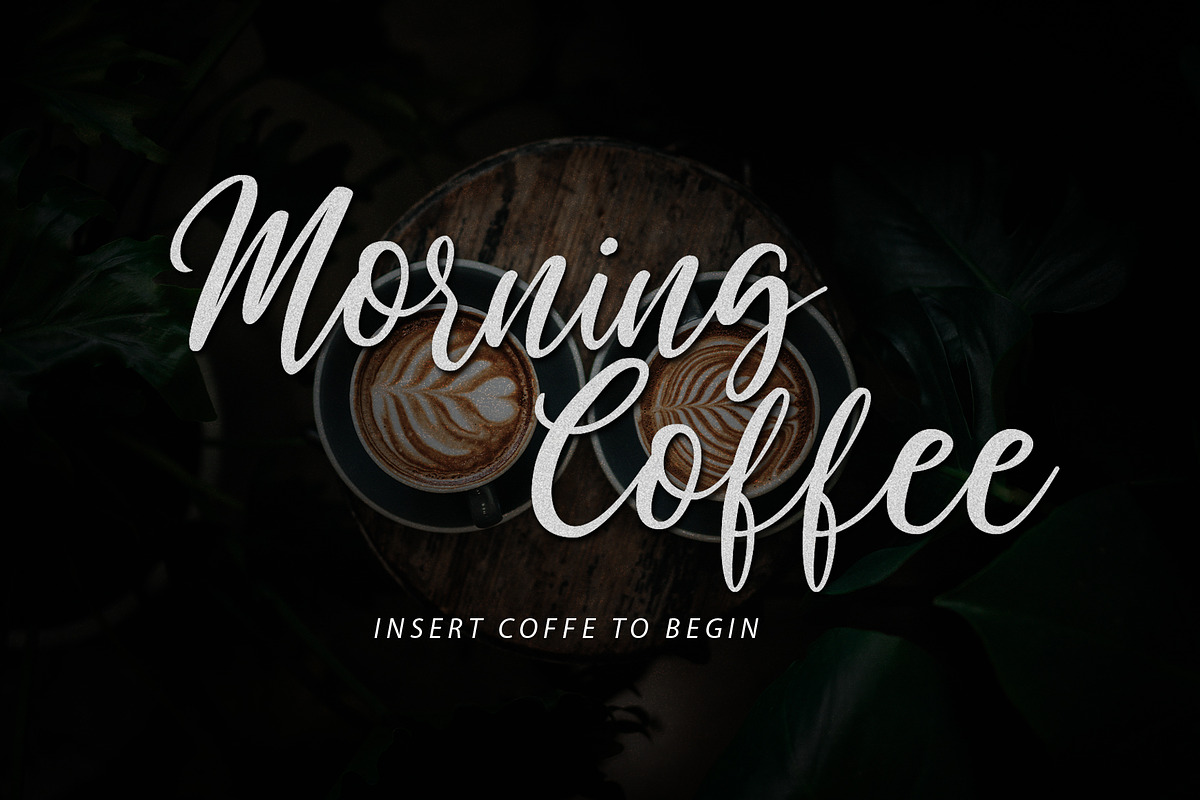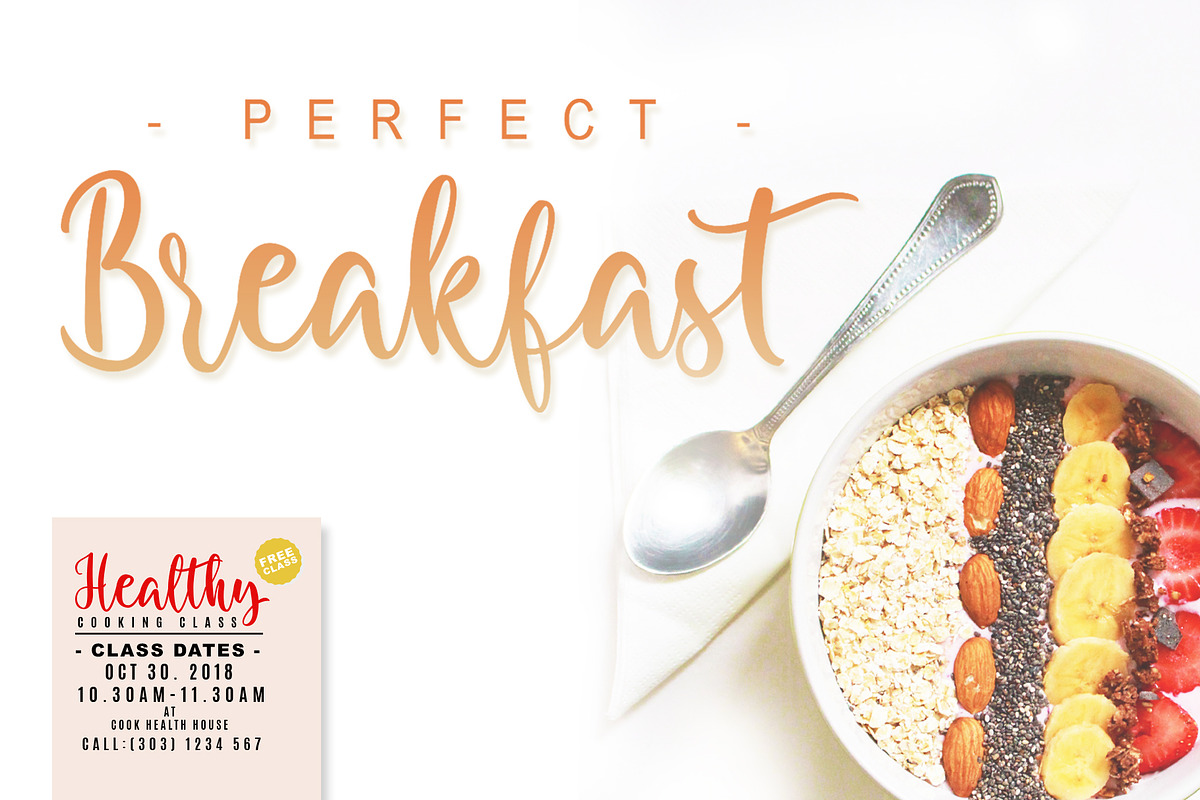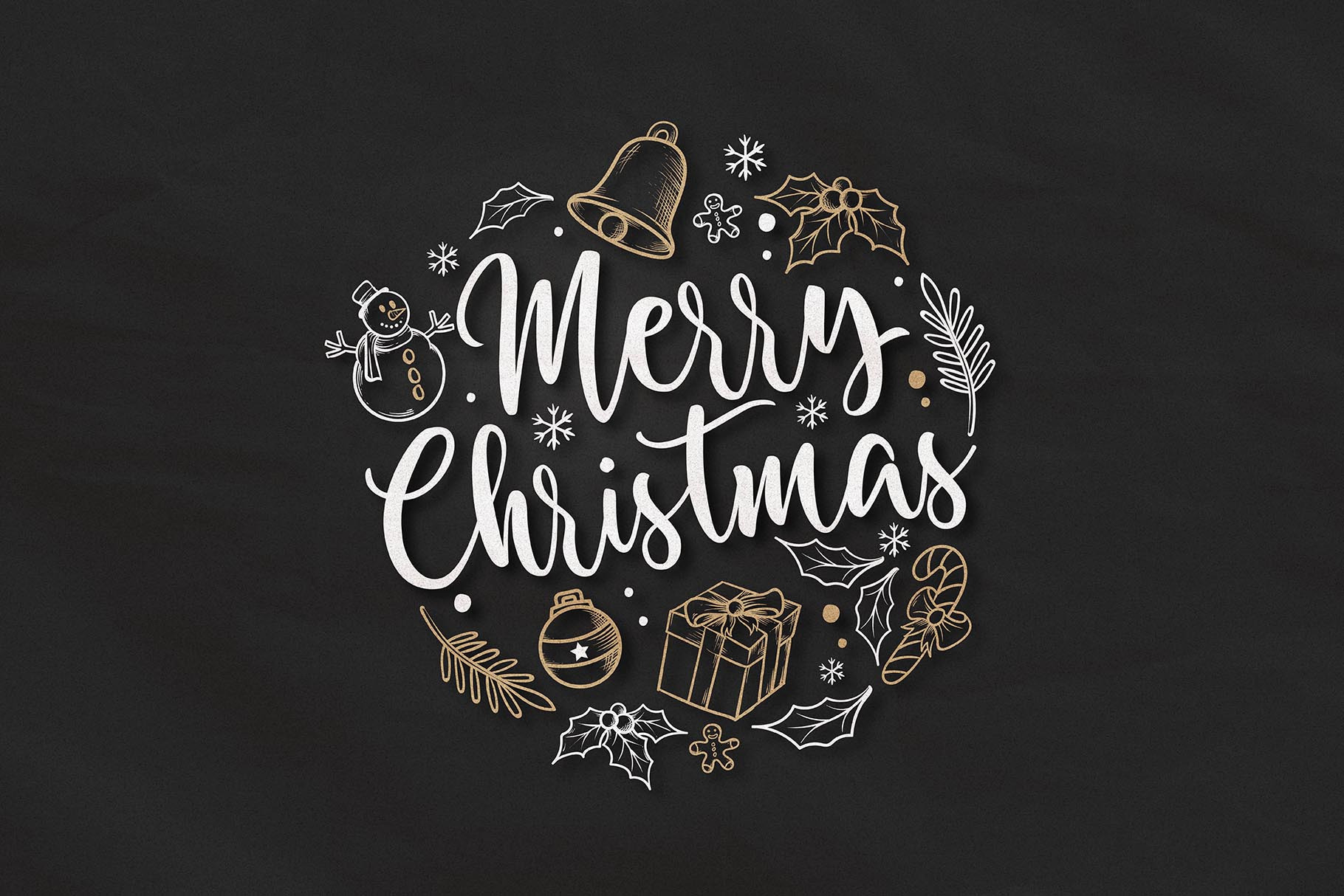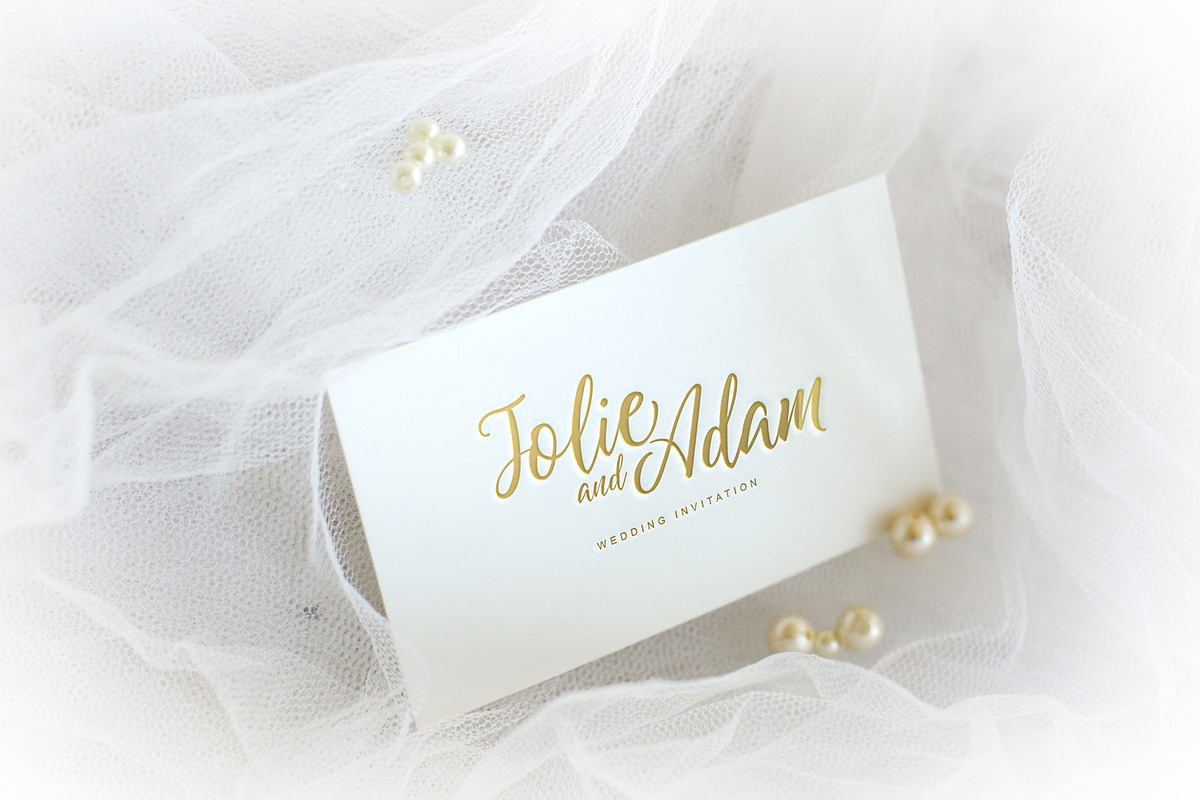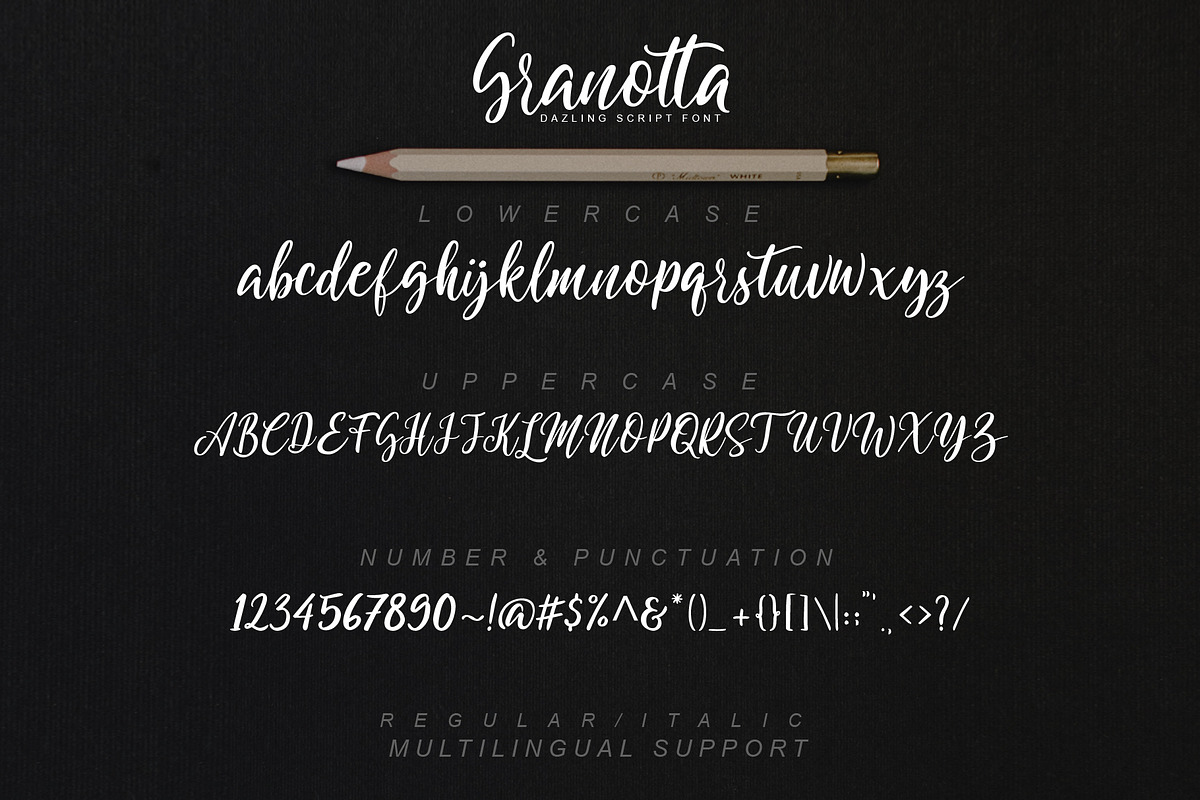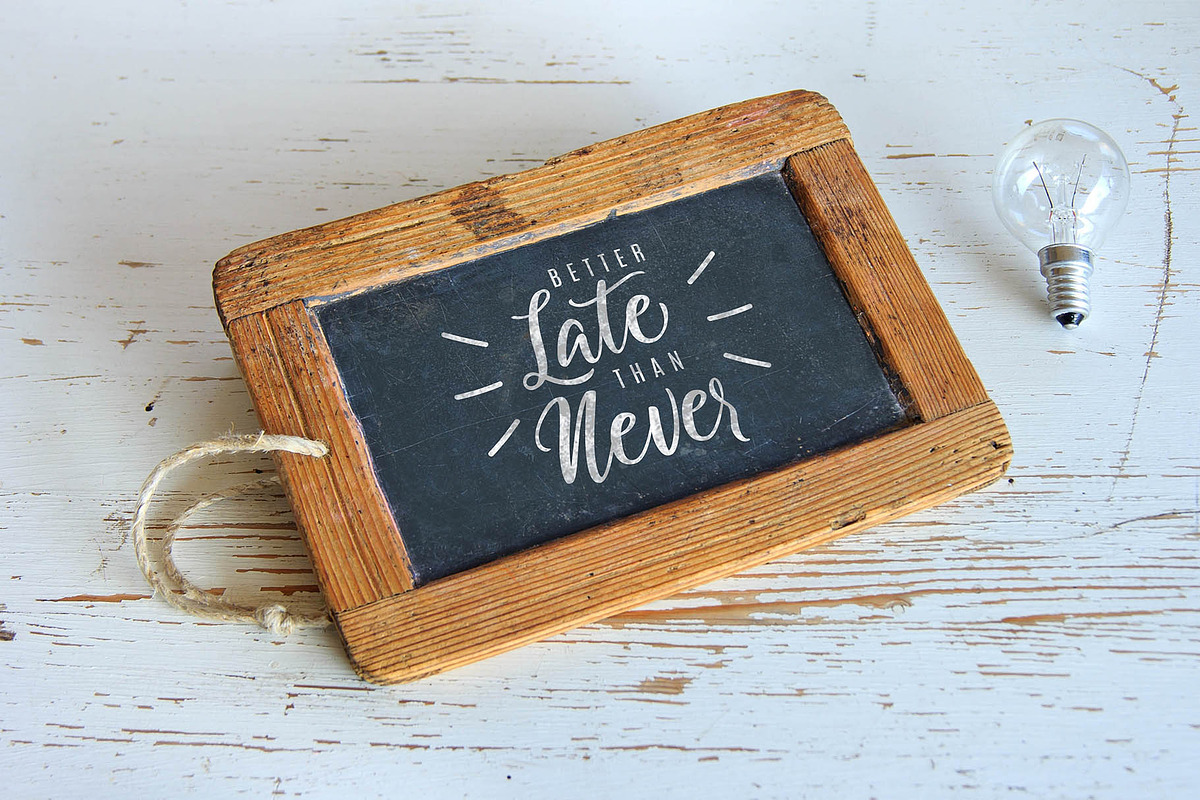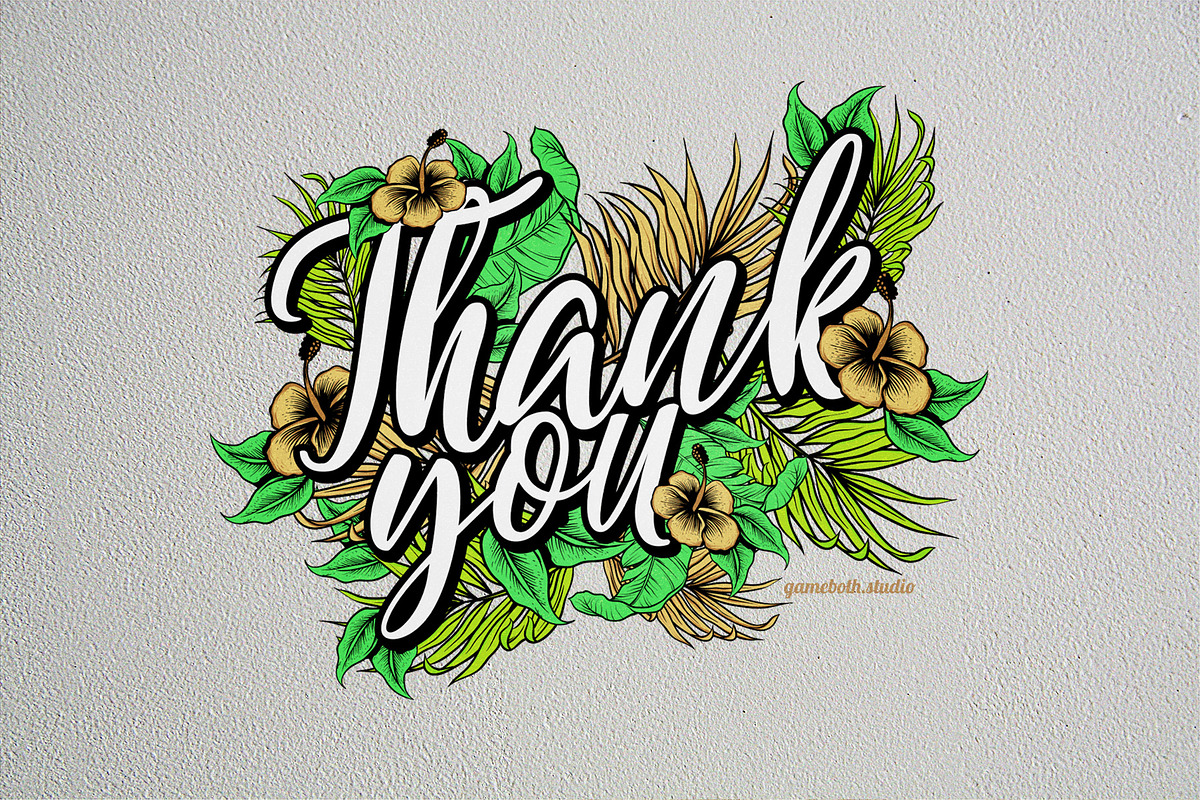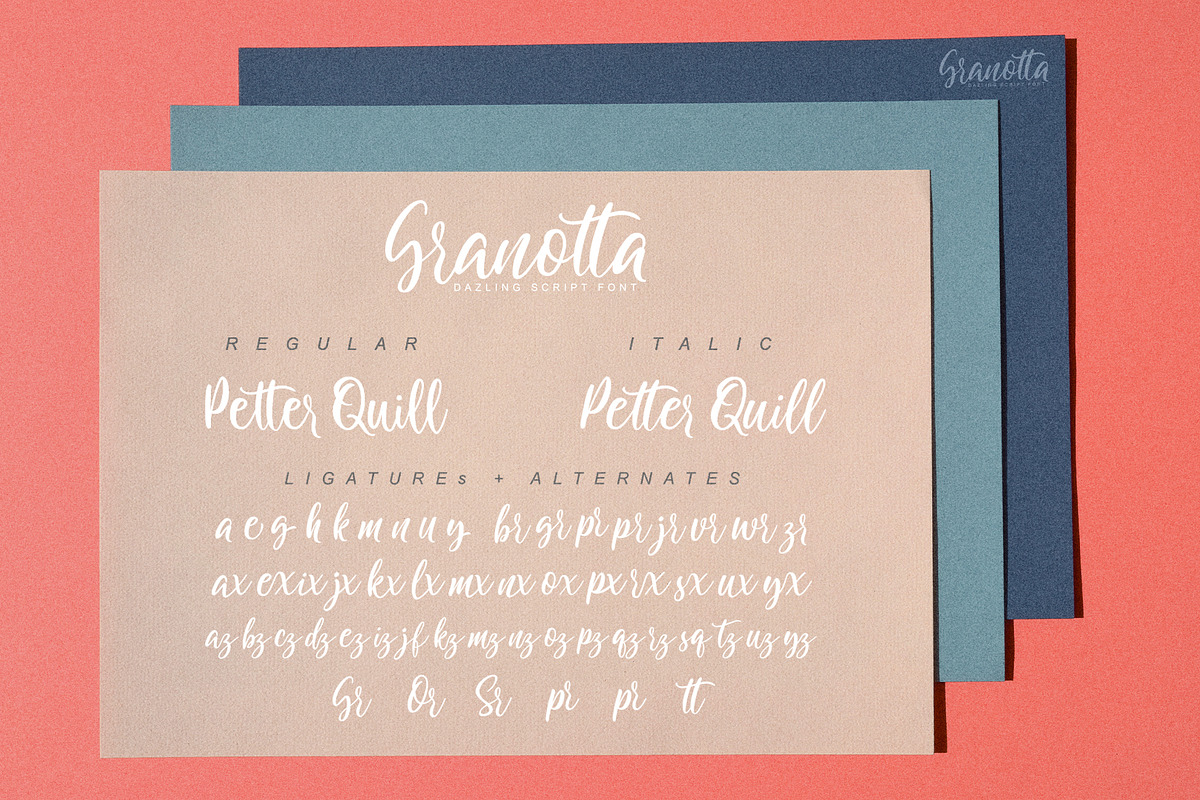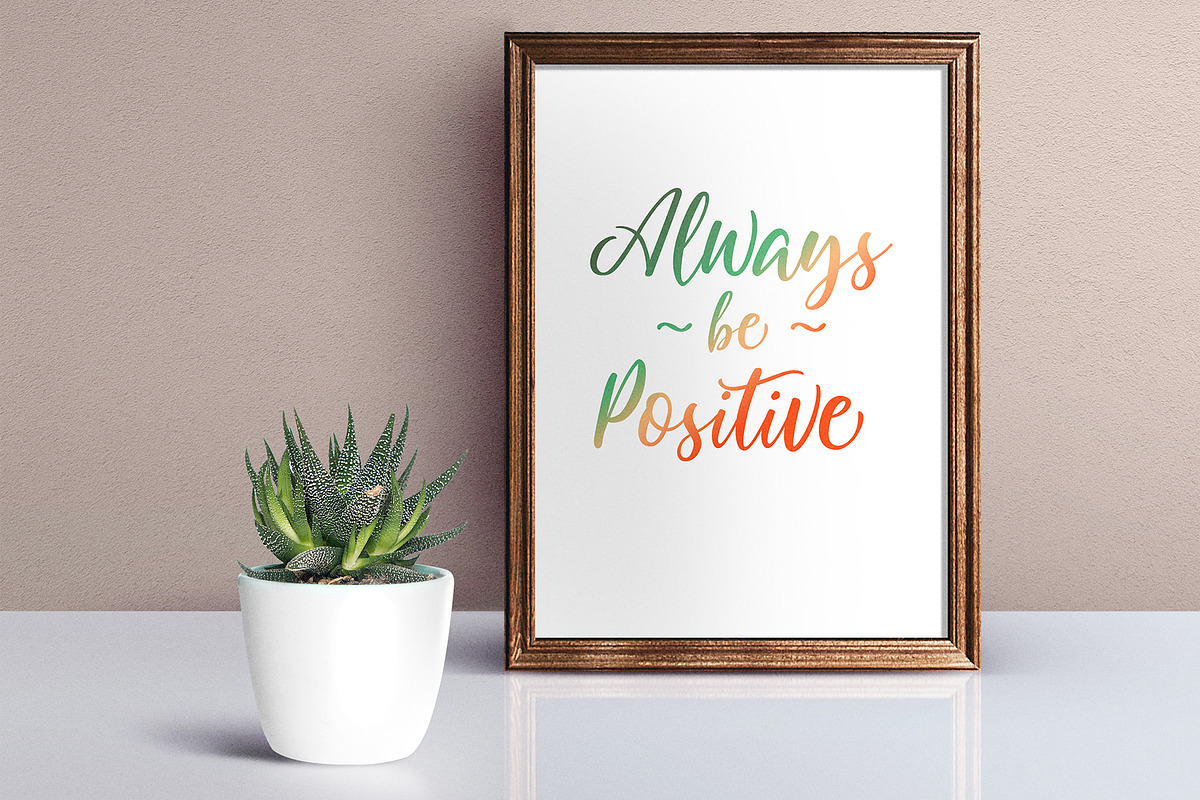
Granotta Font - Christmas with bonus
Introducing New Dazling Style Script Font, i called GRANOTTA .
GRANOTTA is new dazling style script font with regular and italic style
- Standard Character ( Uppercase, Lowercase, Numeric, Currency, Punctuation )
- Alternates Character